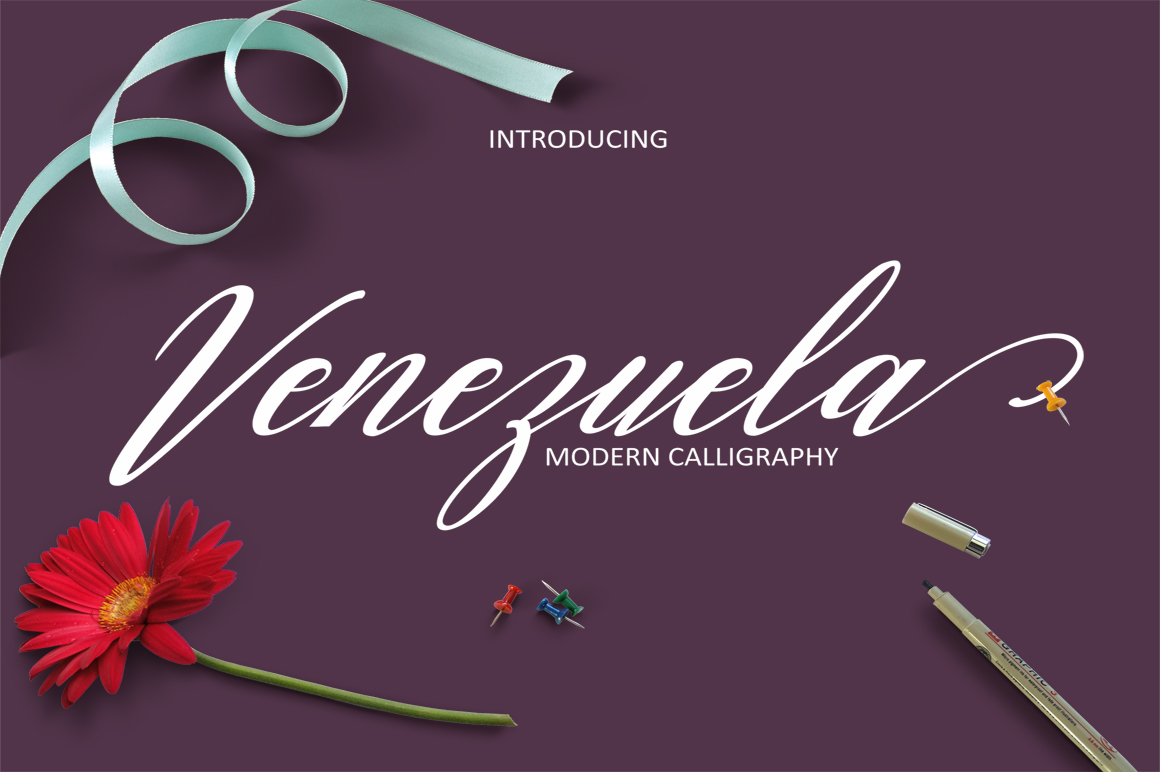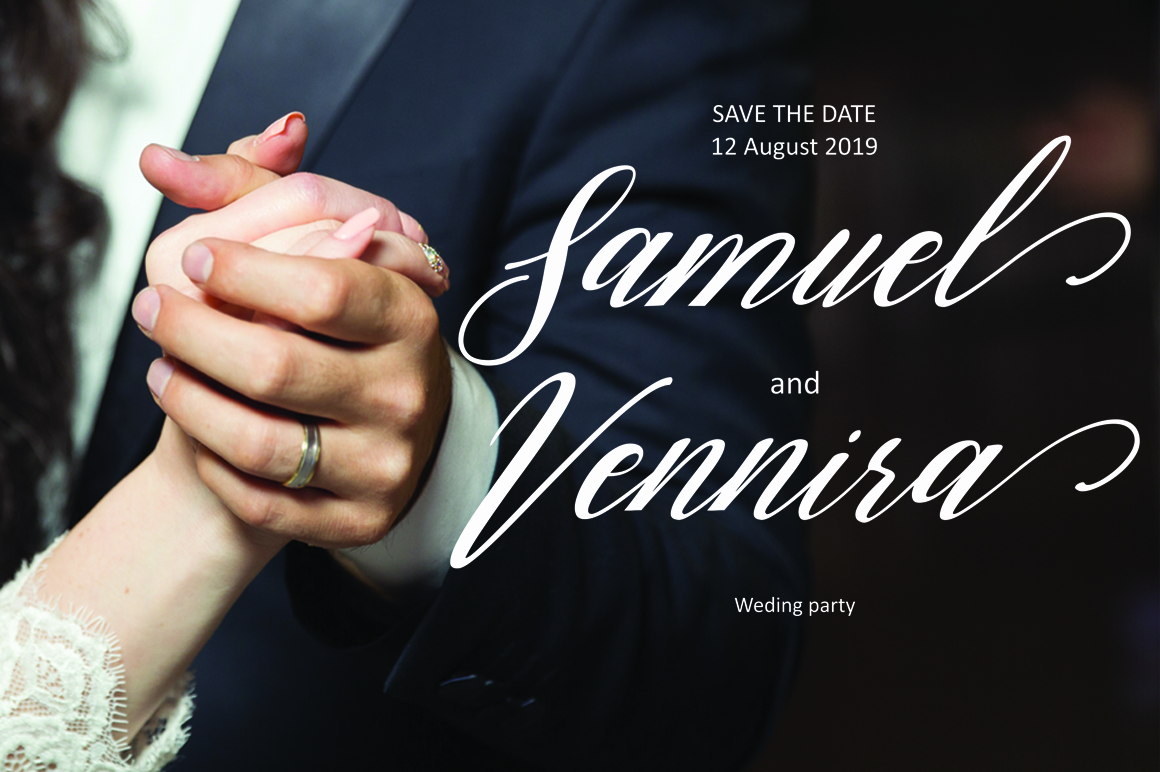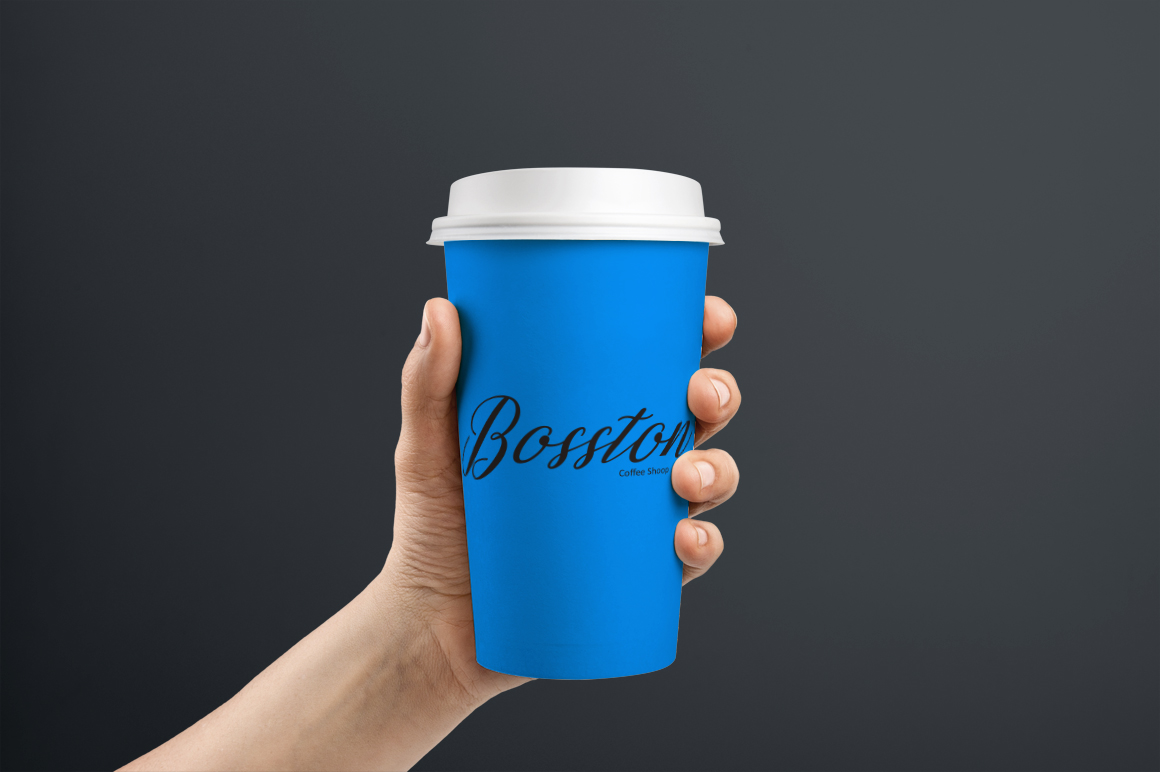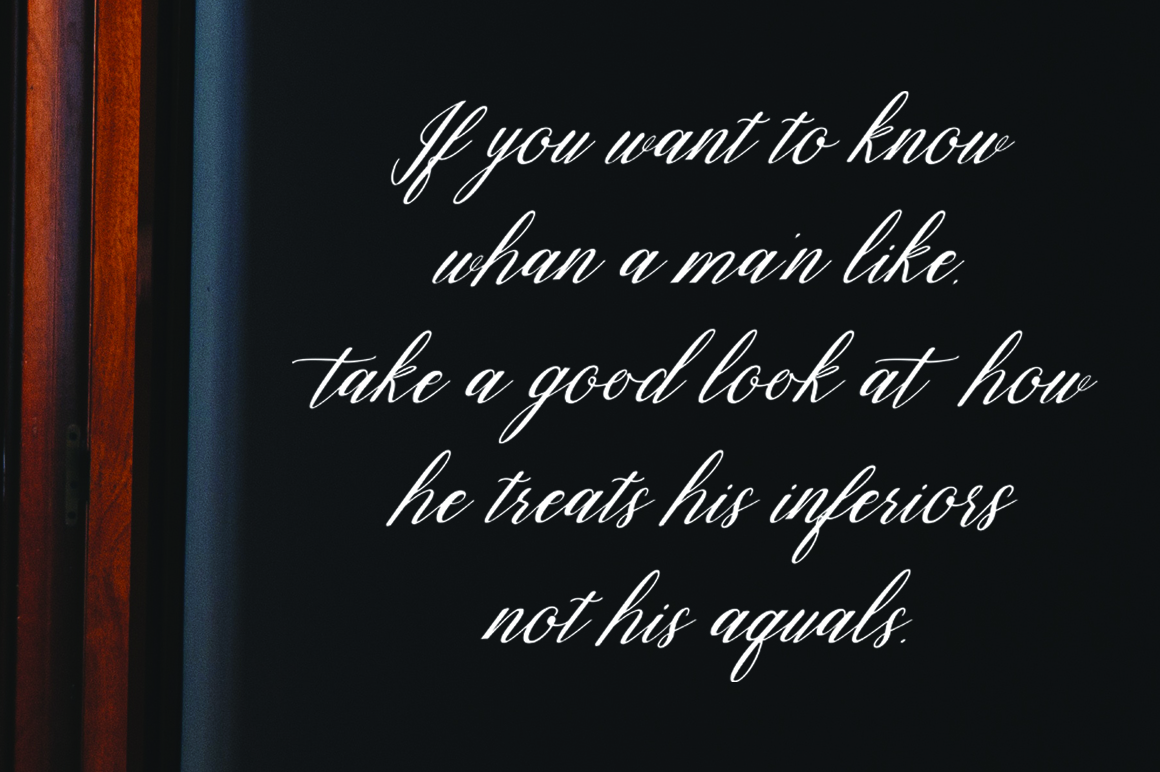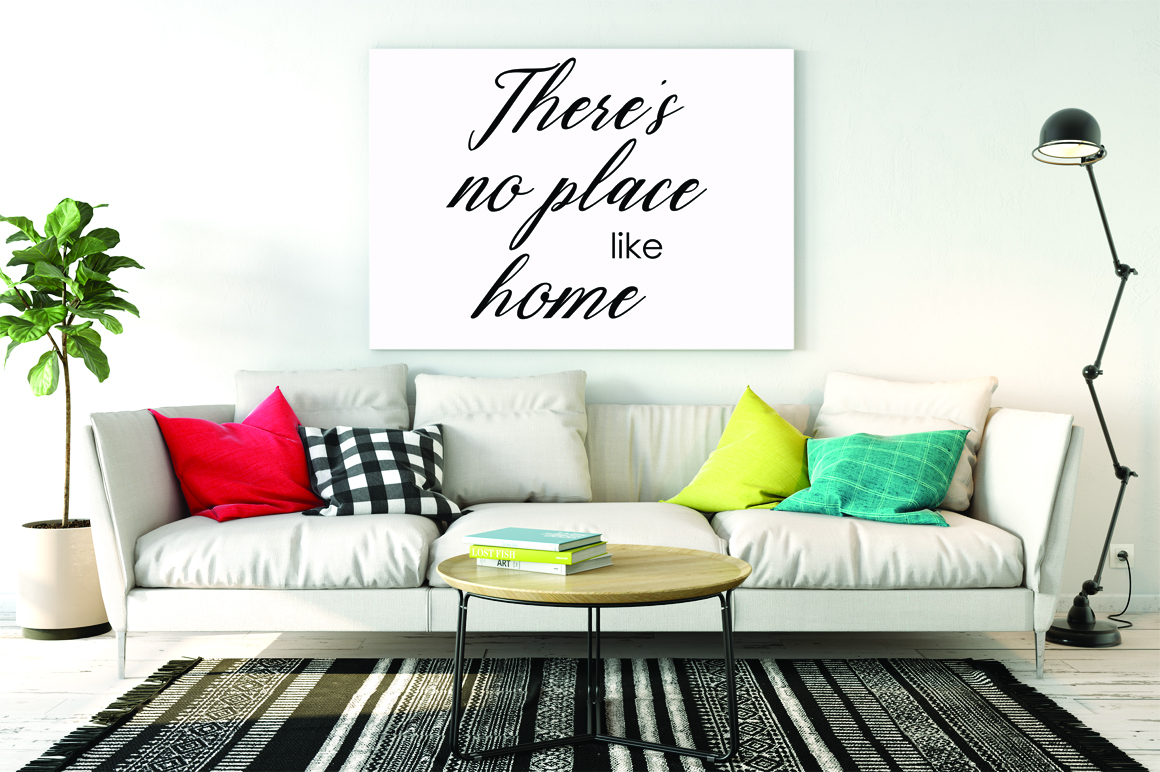
Venezuela Font
About Venezuela Font
Venezuela is a subtle yet mesmerizing script, with a wonderful uniqueness and classiness all its own. This font is smooth and elegant, and can add a ton of character to your designs.